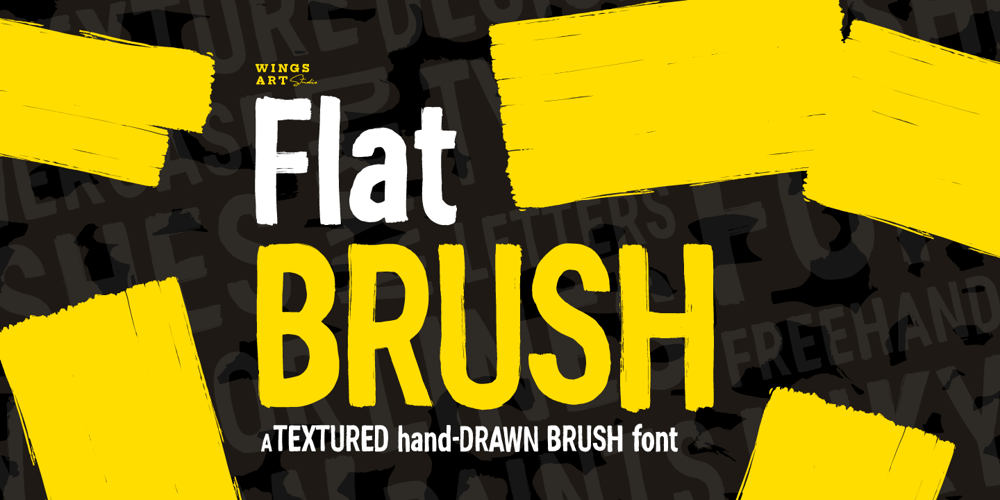
WA Flat Brush Font Family was designed by Christopher King and published by Wing’s Art Studio. WA Flat Brush contains 1 styles and family package options. A versatile textured font hand-made with black ink and brush.The combination of heavy black ink and a well used sable brush resulted in this versatile type, readable in sizes large and small, yet with a distinctly hand-made and textured feel. Great for posters, headers, titles and more. Features uppercase and lowercase letters with language support, numerals, punctuation and symbols.